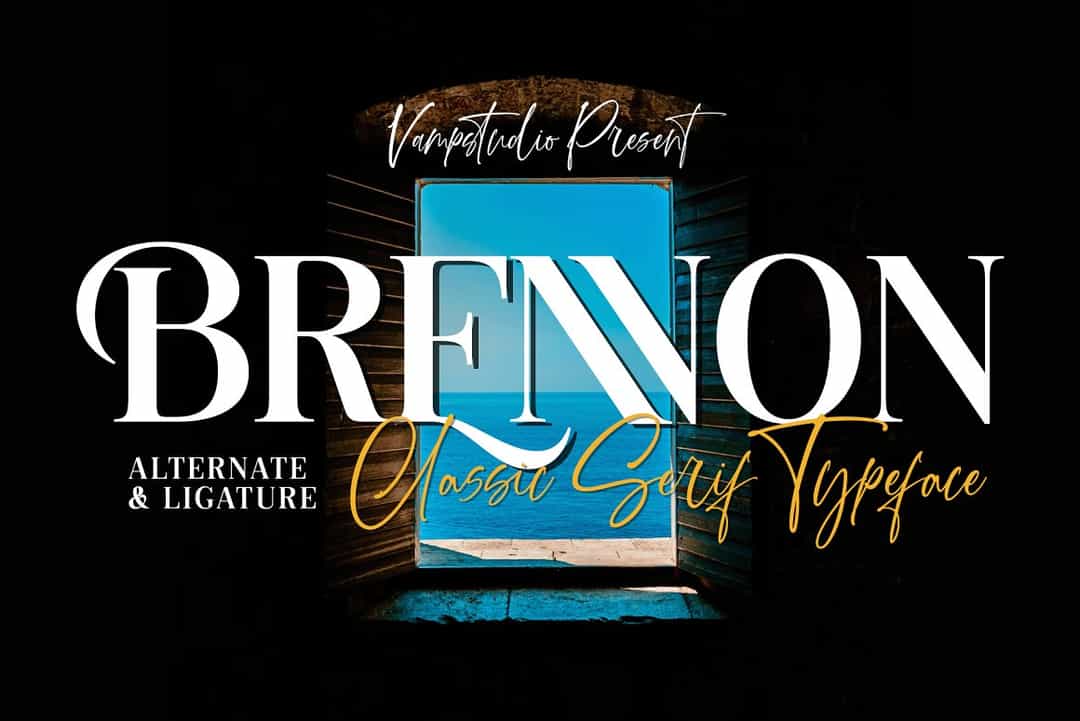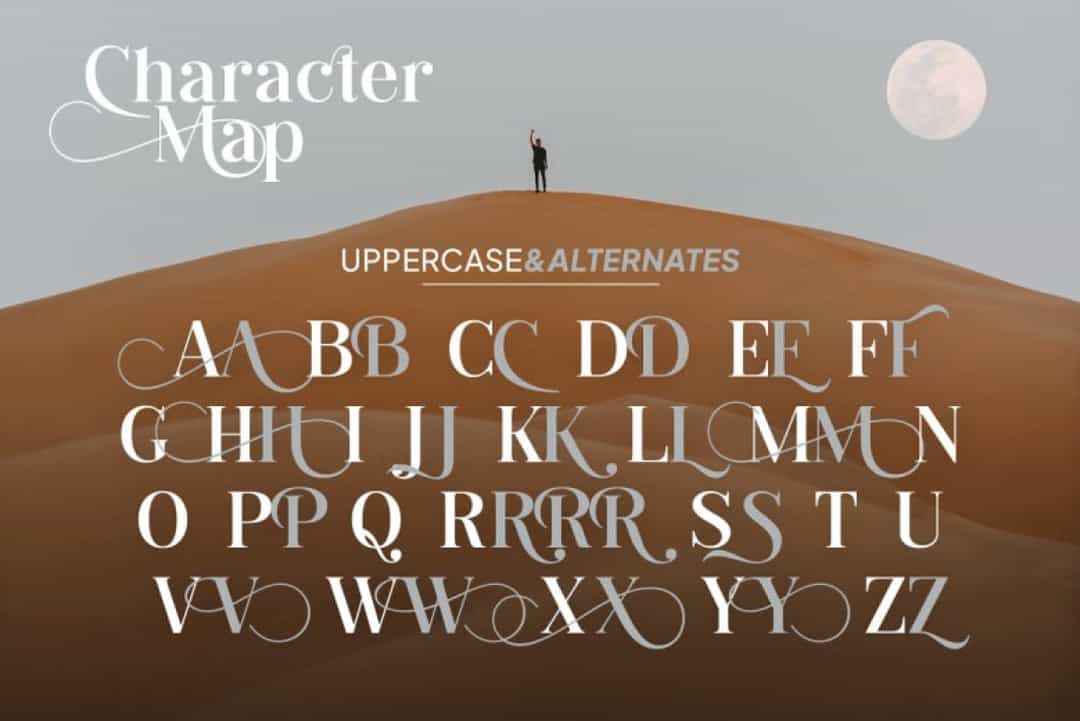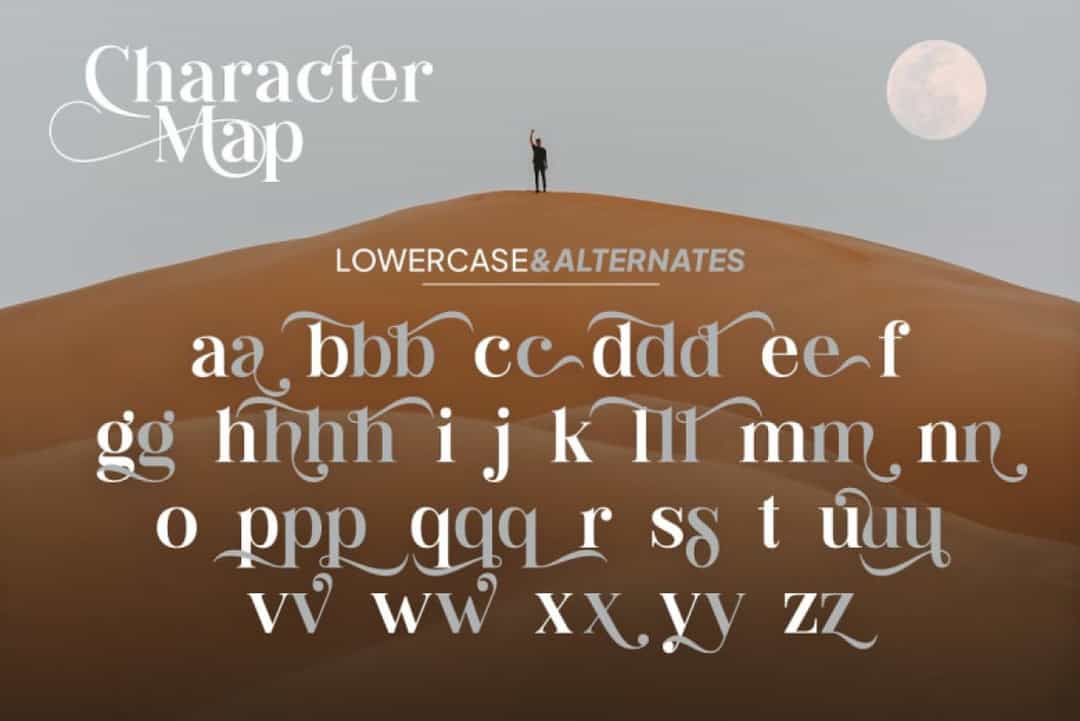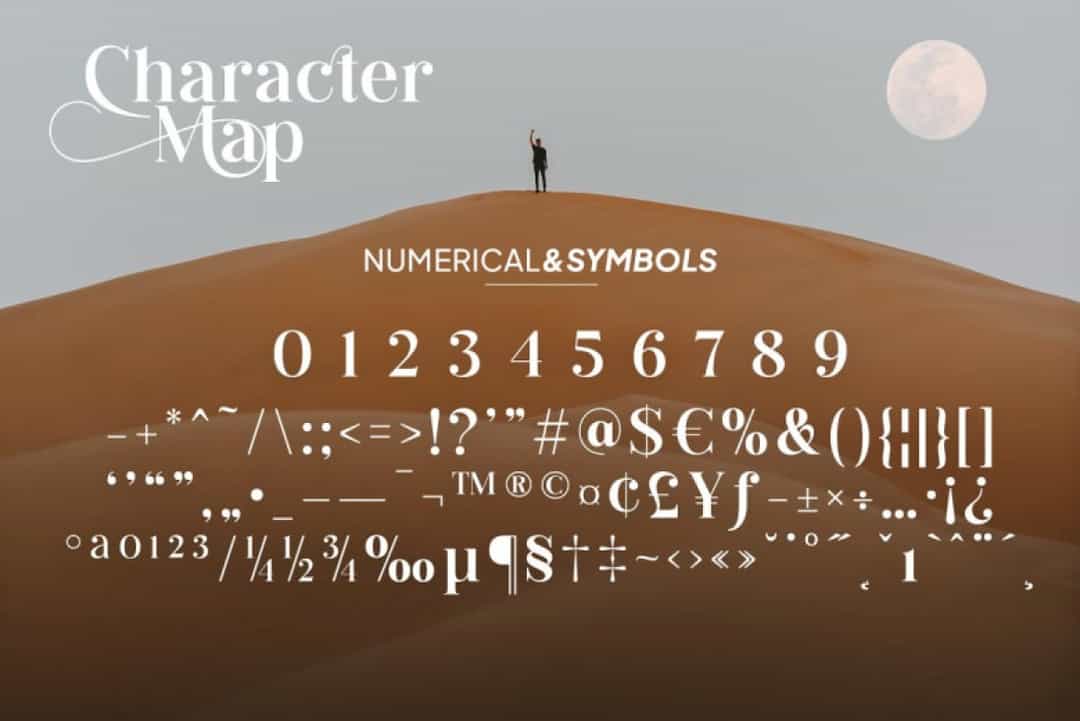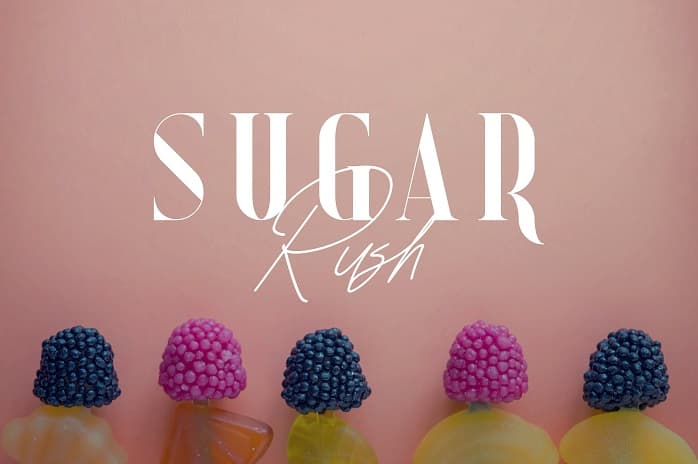
Discover Brennon Font, part of the Serif collection—a versatile and unique font perfect for adding a personal touch to your projects. Download it for free and enjoy crafting designs with style, from invitations to social media posts. This font is available exclusively for personal use, giving you the freedom to create without limits. Unlock your creativity with Brennon Font today!
“Brennon Font” combines modernity and timeless elegance in typography! Give your designs an eye-catching edge with its sophisticated elegance, making “Brennon Font” stand out against competitors by using this versatile typeface in various applications to bring both contemporary flair and timeless charm to artistic endeavors.